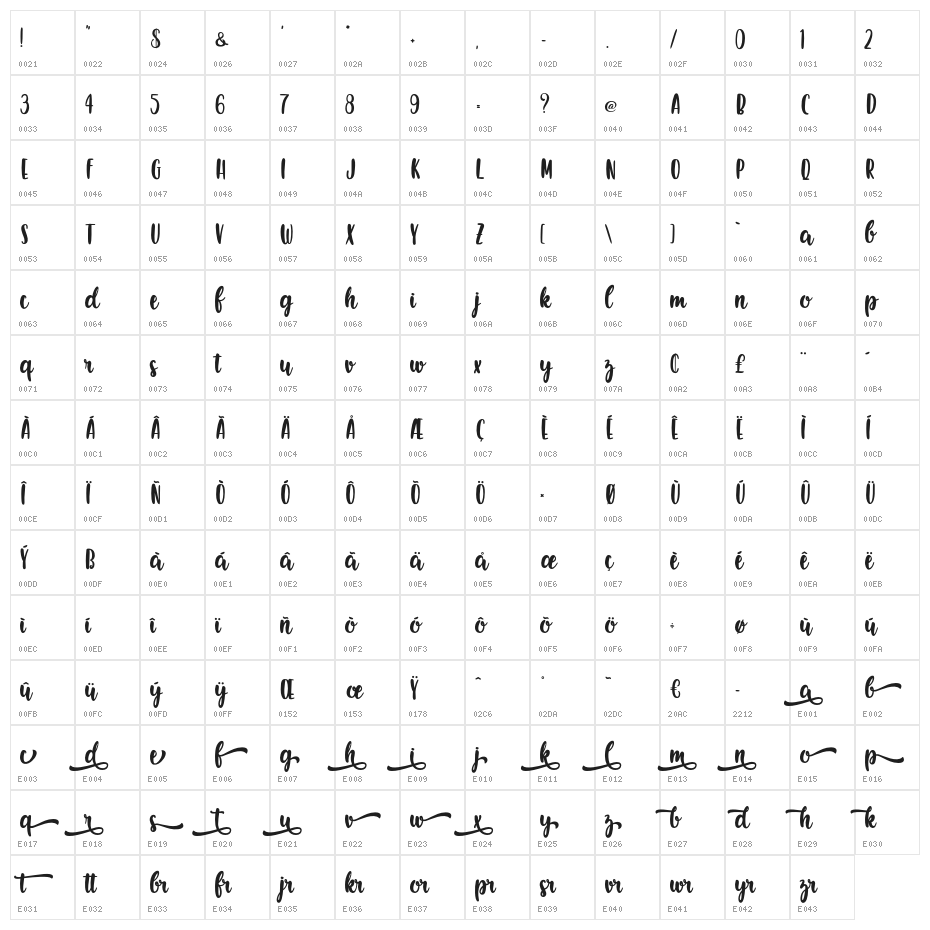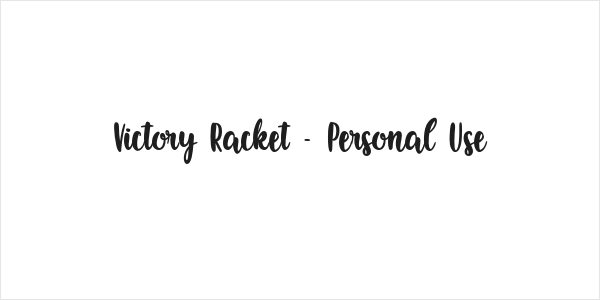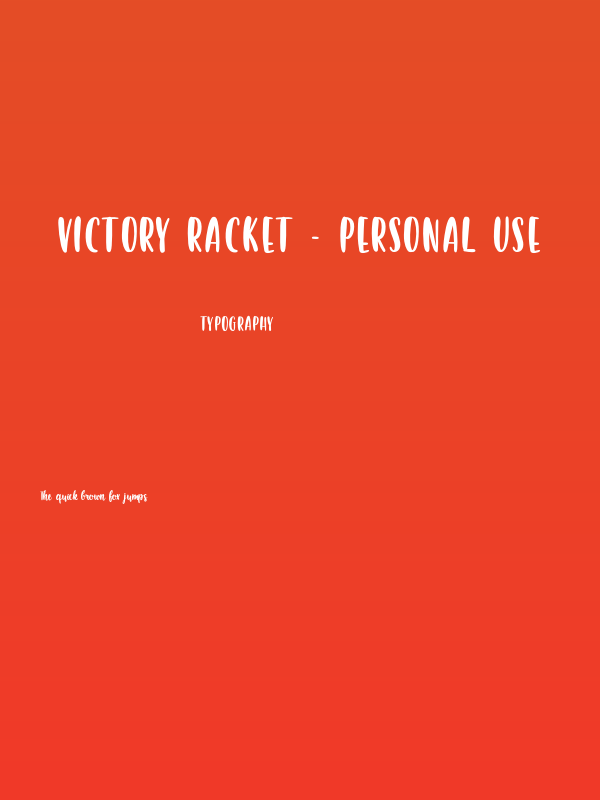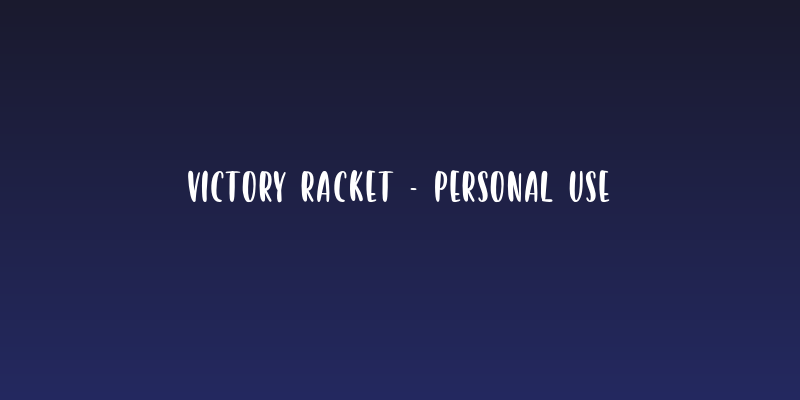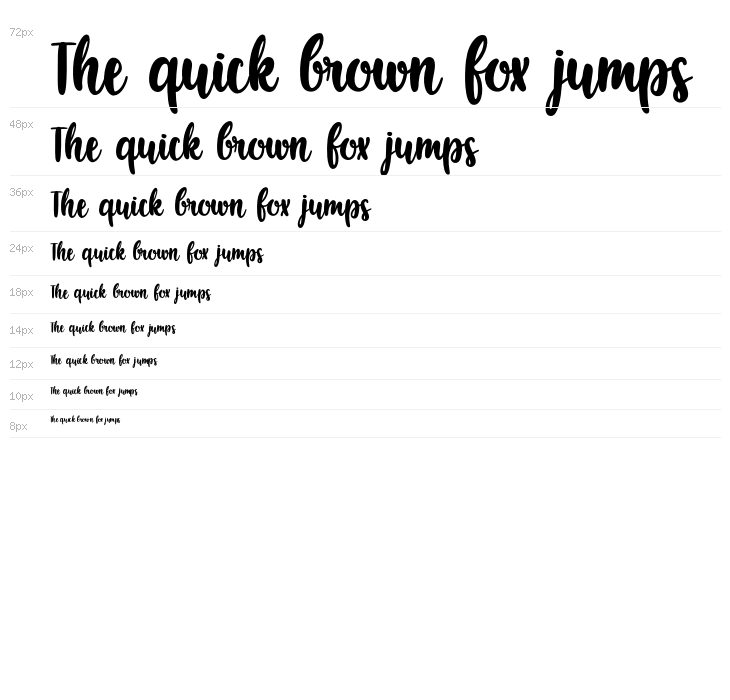
Victory Racket - Personal Use Font
Victory Racket - Personal Use Description
This font features a bold and playful script style, characterized by its smooth, flowing curves and slightly irregular strokes that give it a hand-drawn appearance. The uppercase letters are tall and slightly condensed, while the lowercase letters maintain a consistent baseline with occasional flourishes. The numbers are clear and legible, matching the overall style of the alphabet. Special characters are creatively integrated, maintaining the whimsical and artistic feel. This font is ideal for projects that require a personal and friendly touch, such as invitations, greeting cards, or branding for creative businesses.